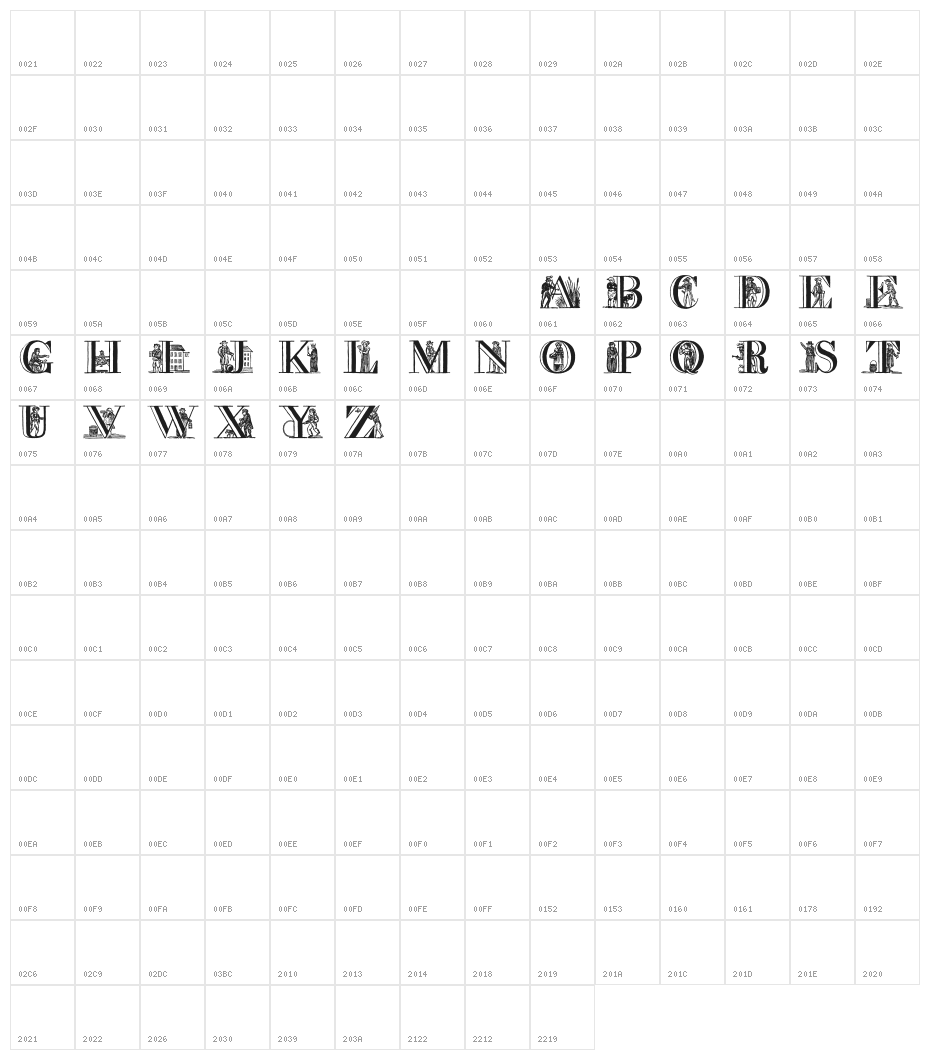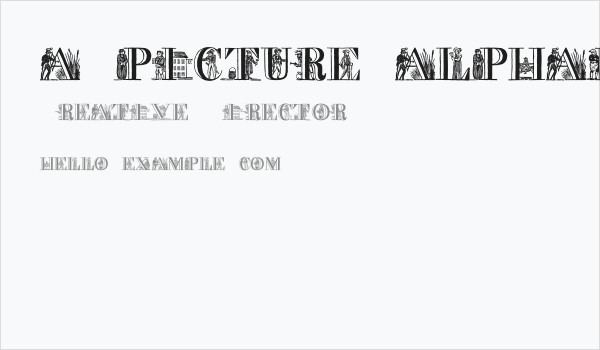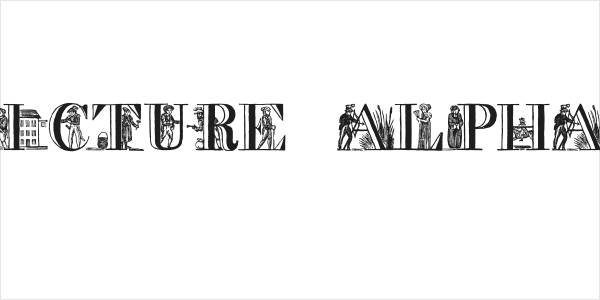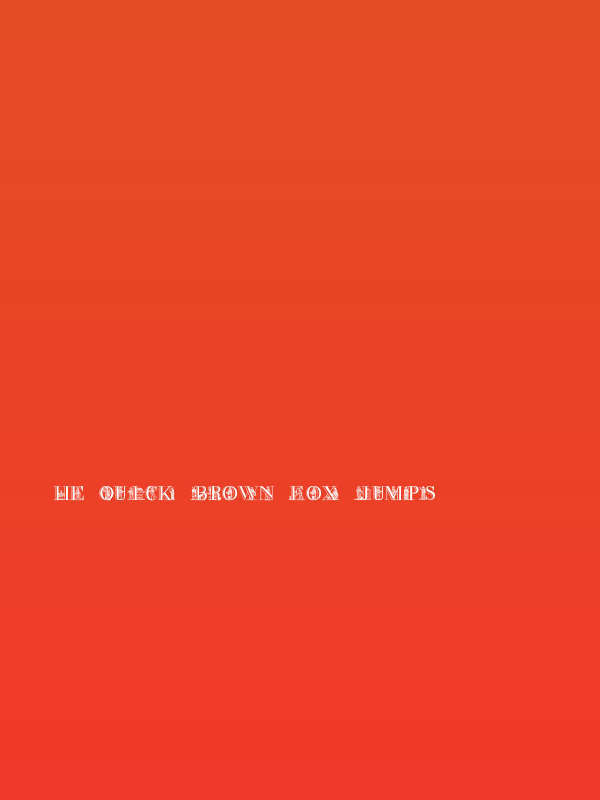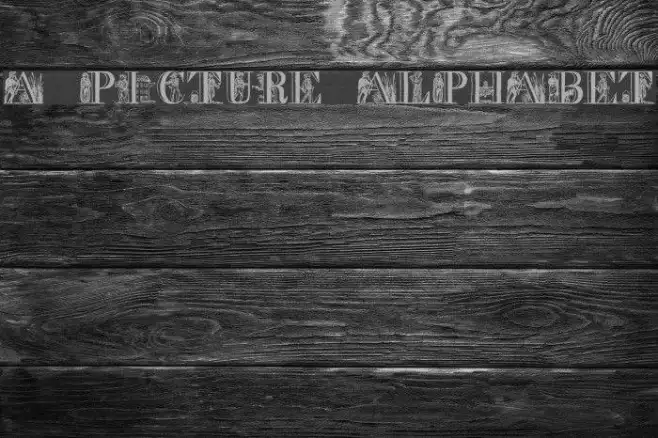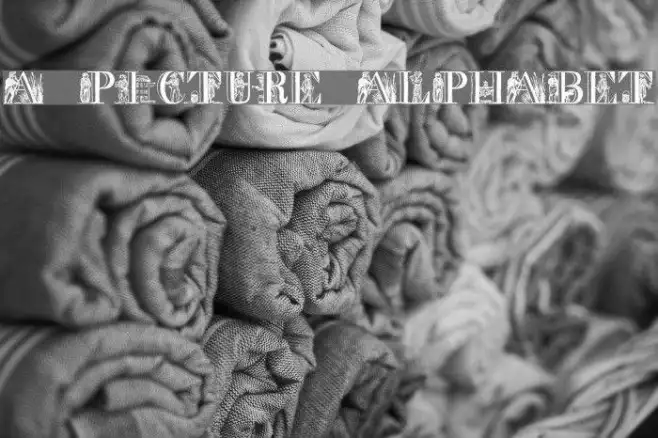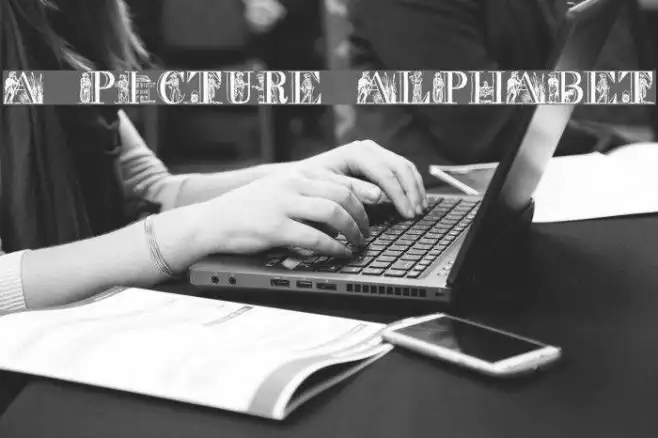
a picture alphabet Font
a picture alphabet Description
This decorative font is characterized by its intricate and artistic design, where each letter is filled with detailed illustrations. The uppercase letters are adorned with various scenes and figures, creating a visually captivating effect. The style is reminiscent of vintage or classical art, making it stand out as a unique and eye-catching typeface. The font's complexity and artistic nature suggest it is best suited for projects that require a strong visual impact, such as posters, book covers, or themed event invitations. Its detailed illustrations within each character make it less suitable for body text but perfect for decorative purposes.
| Proposed Projects | Ideal for posters, book covers, themed event invitations, and other projects requiring a strong visual impact. |